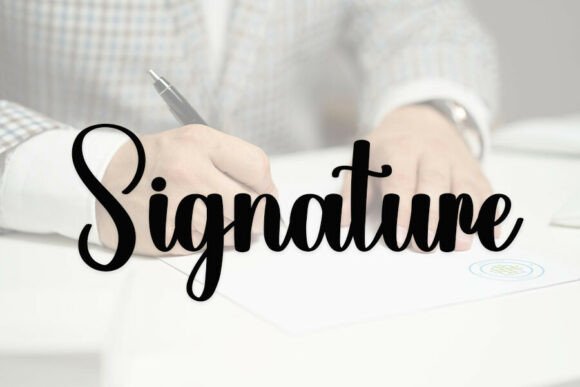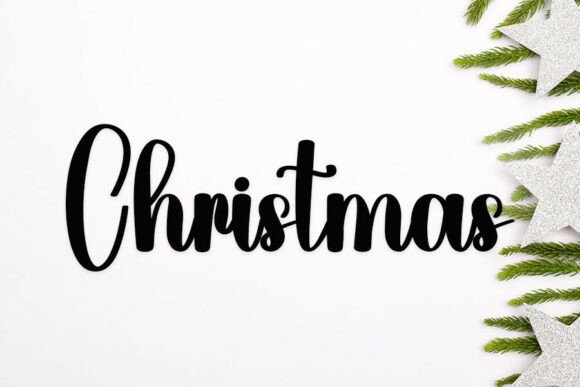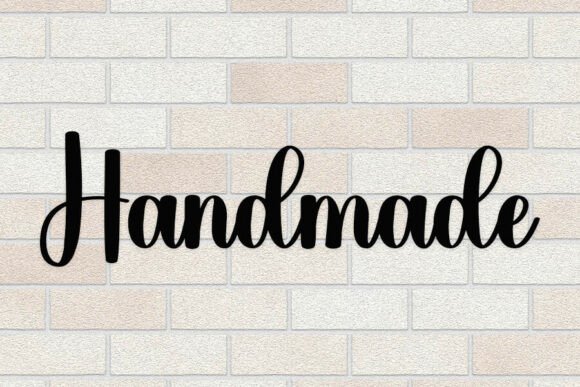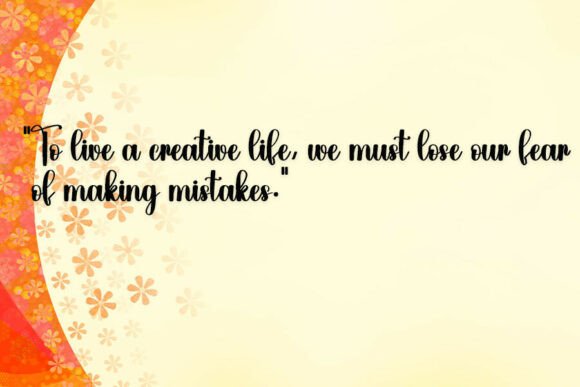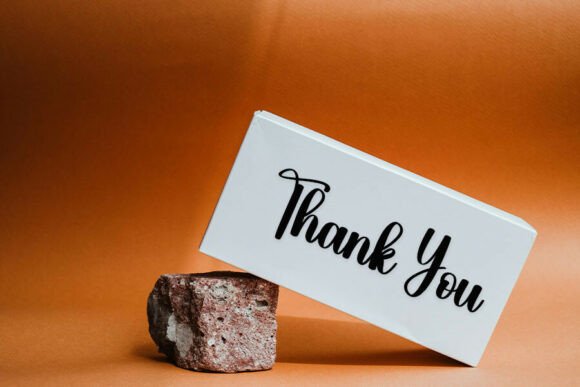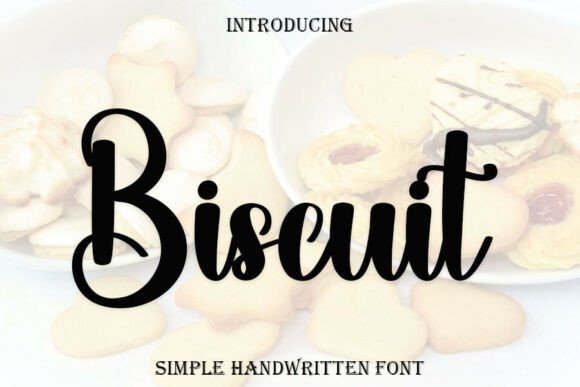
Biscuit Font: The Sweet and Elegant Choice for Your Design Projects
Are you looking for a font that can add a touch of sweetness and romance to your design projects? Look no further than the Biscuit Font! This beautiful, cursive handwritten font is perfect for a variety of design ideas and is sure to make your projects stand out.
What is Biscuit Font?
Biscuit Font is a sweet and cursive handwritten font that is designed to add a touch of elegance and sophistication to your designs. With its gentle and flowing curves, this font is perfect for creating beautiful and eye-catching designs that are sure to impress.
Features of Biscuit Font
- Sweet and Cursive Handwritten Style: Biscuit Font features a beautiful, cursive handwritten style that is perfect for creating elegant and sophisticated designs.
- Versatile and Flexible: This font is versatile and flexible, making it perfect for a variety of design projects, from branding and logos to wedding things and greeting cards.
- Easy to Read: Despite its elegant and cursive style, Biscuit Font is easy to read and understand, making it perfect for use in body text and other applications where readability is important.
- Fancy and Elegant but Still Casual: Biscuit Font is the perfect choice for designers who want to create designs that are fancy and elegant but still casual and approachable.
Use Cases for Biscuit Font
Biscuit Font is perfect for a variety of design projects, including:
- Branding and Logos: Use Biscuit Font to create beautiful and memorable logos and branding materials that will help your business stand out.
- Wedding Things: This font is perfect for creating beautiful wedding invitations, programs, and other materials that will make your special day even more memorable.
- Greeting Cards: Use Biscuit Font to create beautiful and heartfelt greeting cards for special occasions like birthdays, anniversaries, and holidays.
- Fashion and Lookbook: This font is perfect for creating stylish and sophisticated fashion designs and lookbooks that will showcase your designs in the best possible light.
- Marketing Promotion: Use Biscuit Font to create eye-catching and effective marketing materials, such as brochures, flyers, and posters.
Why Choose Biscuit Font?
There are many reasons why you should choose Biscuit Font for your design projects. Here are just a few:
- Unique and Elegant Style: Biscuit Font features a unique and elegant style that is sure to make your designs stand out.
- Highly Versatile: This font is highly versatile and can be used for a wide range of design projects.
Tips for Using Biscuit Font
Here are a few tips for using Biscuit Font in your design projects:
- Use it as a Headline Font: Biscuit Font is perfect for use as a headline font, where its elegant and cursive style can really make an impact.
- Pair it with Other Fonts: This font pairs well with other fonts, so feel free to experiment with different combinations to find the one that works best for your project.
- Use it for Body Text: While Biscuit Font is elegant and cursive, it is also easy to read, making it a great choice for use in body text.
In conclusion, Biscuit Font is a beautiful and elegant font that is perfect for a variety of design projects. With its sweet and cursive handwritten style, this font is sure to add a touch of romance and sophistication to your designs. Whether you’re a designer or crafter, Biscuit Font is a great choice for anyone looking to create beautiful and eye-catching designs.